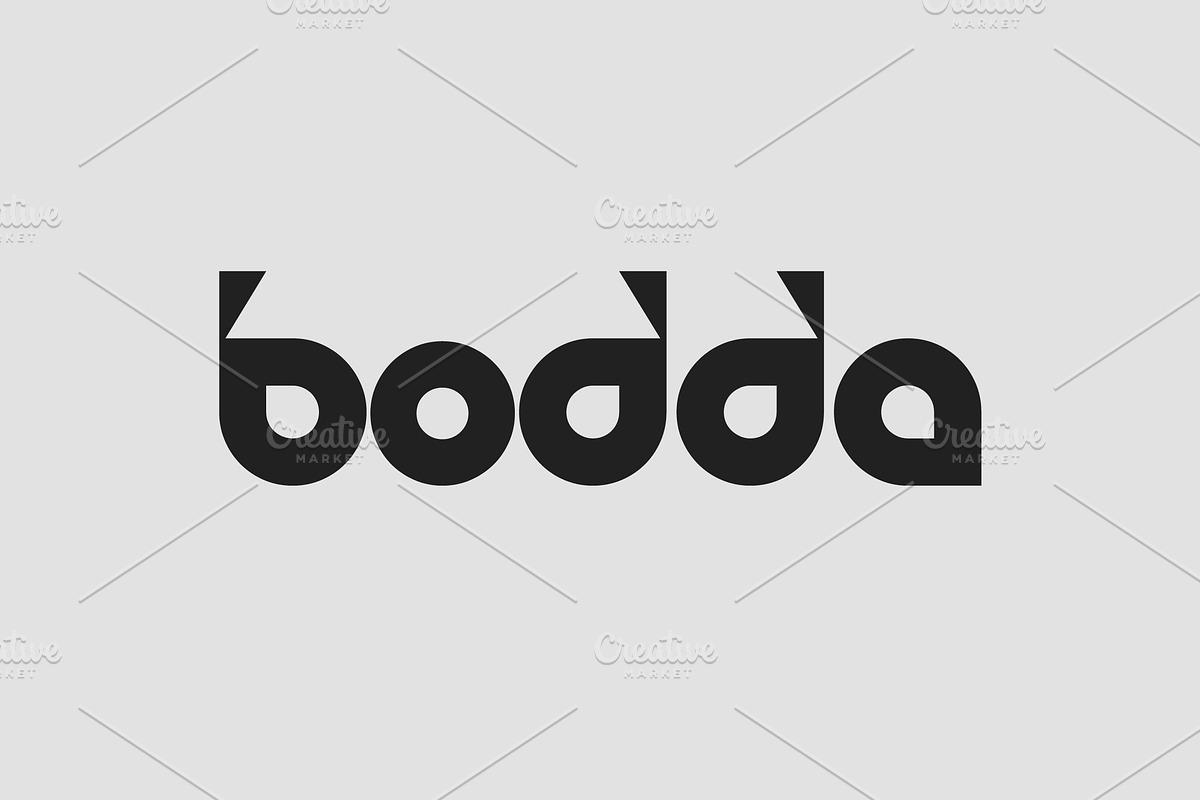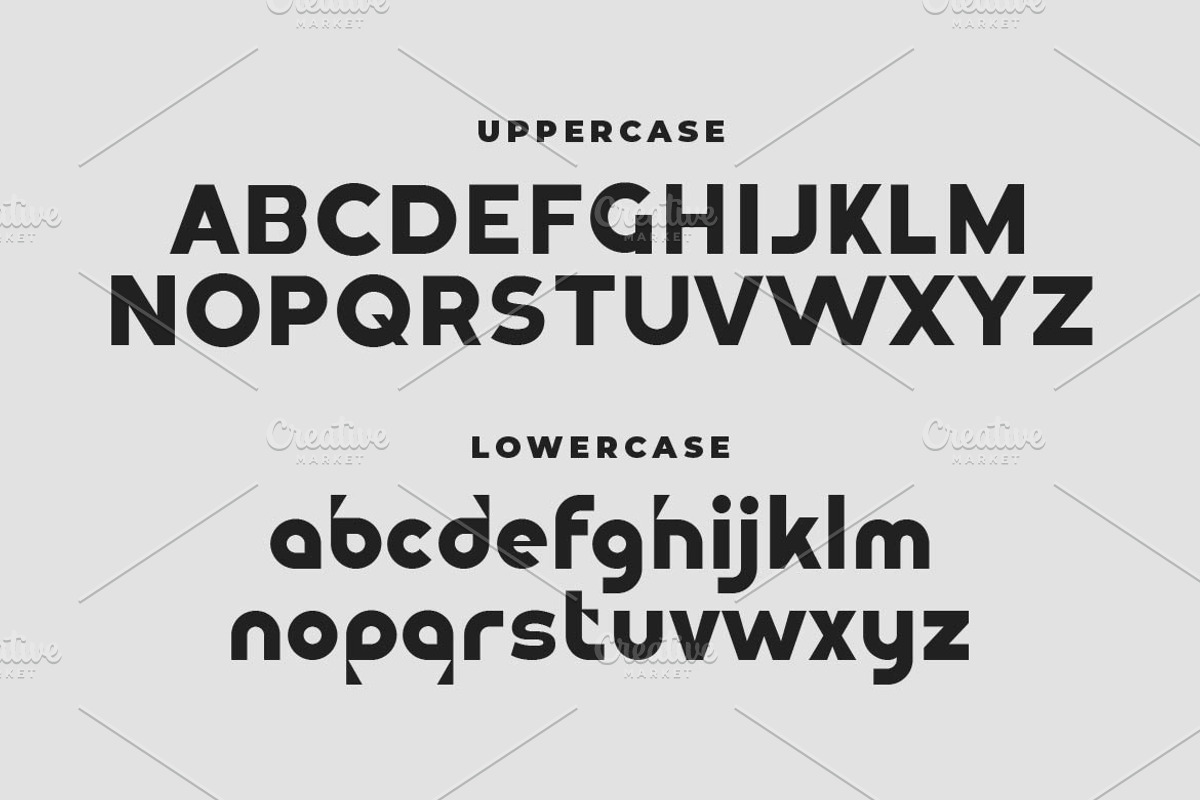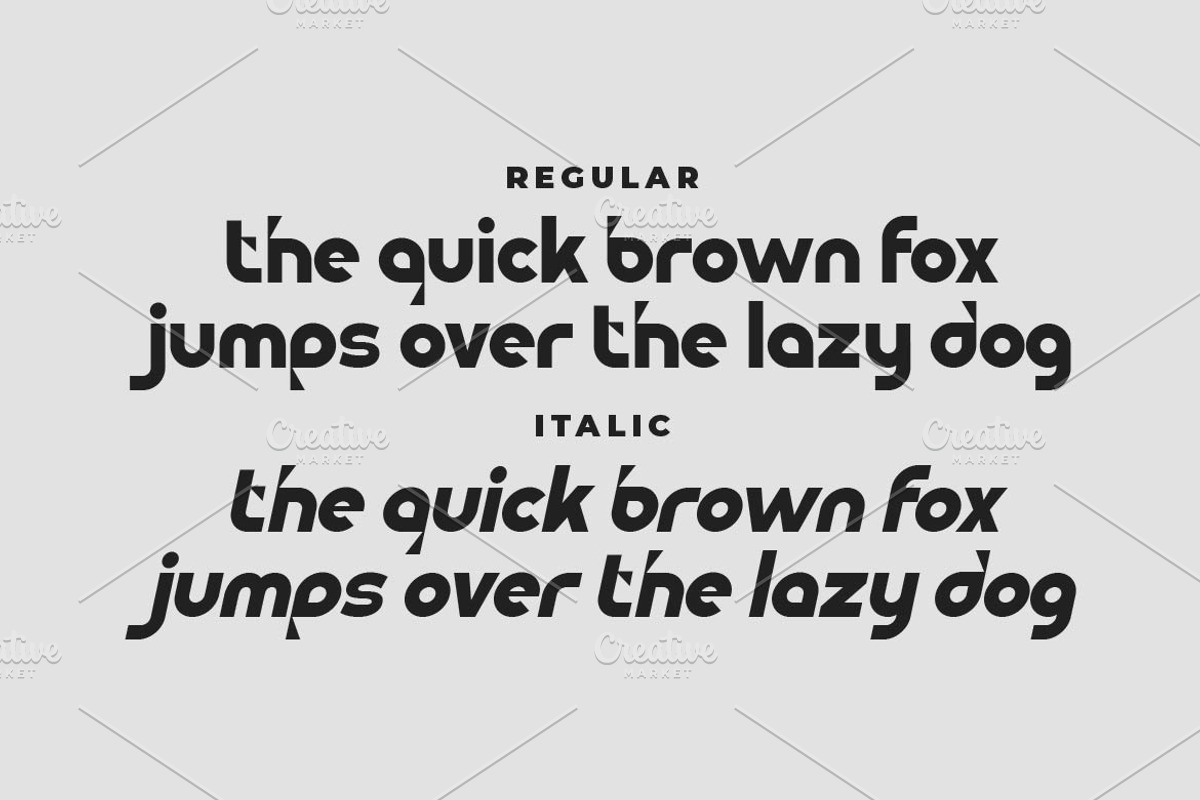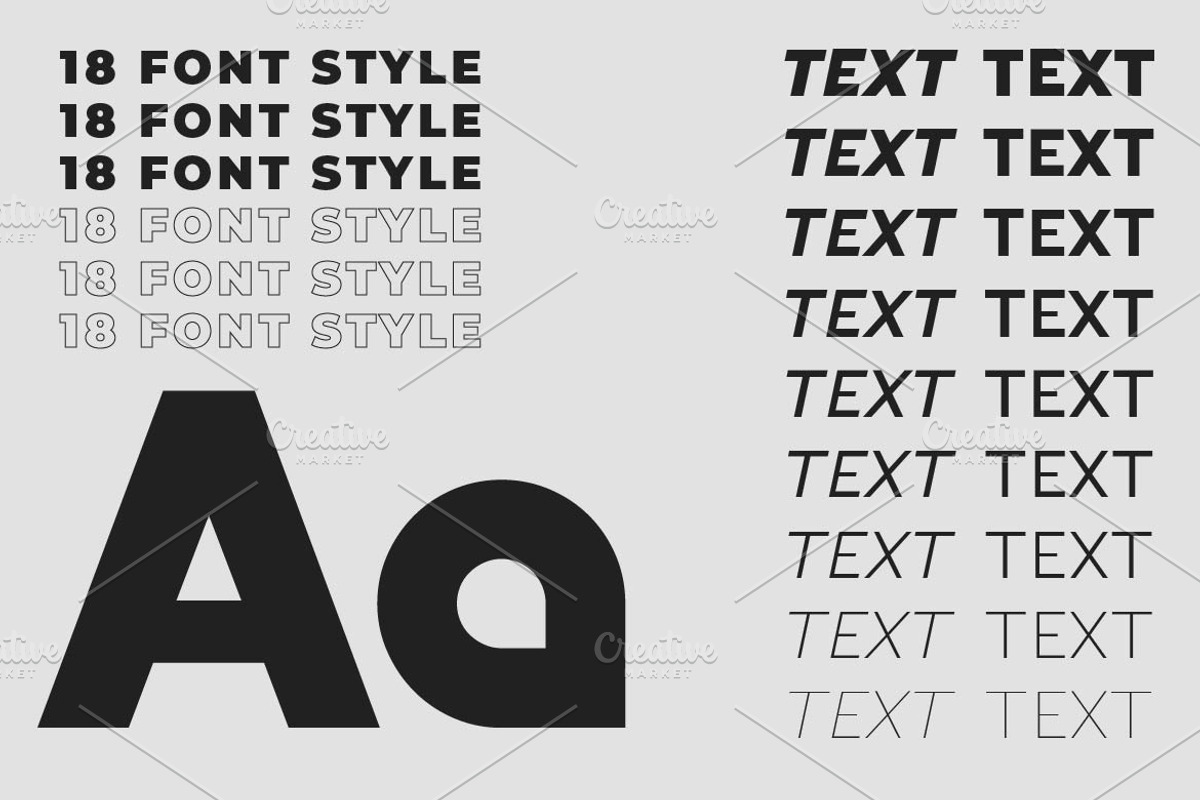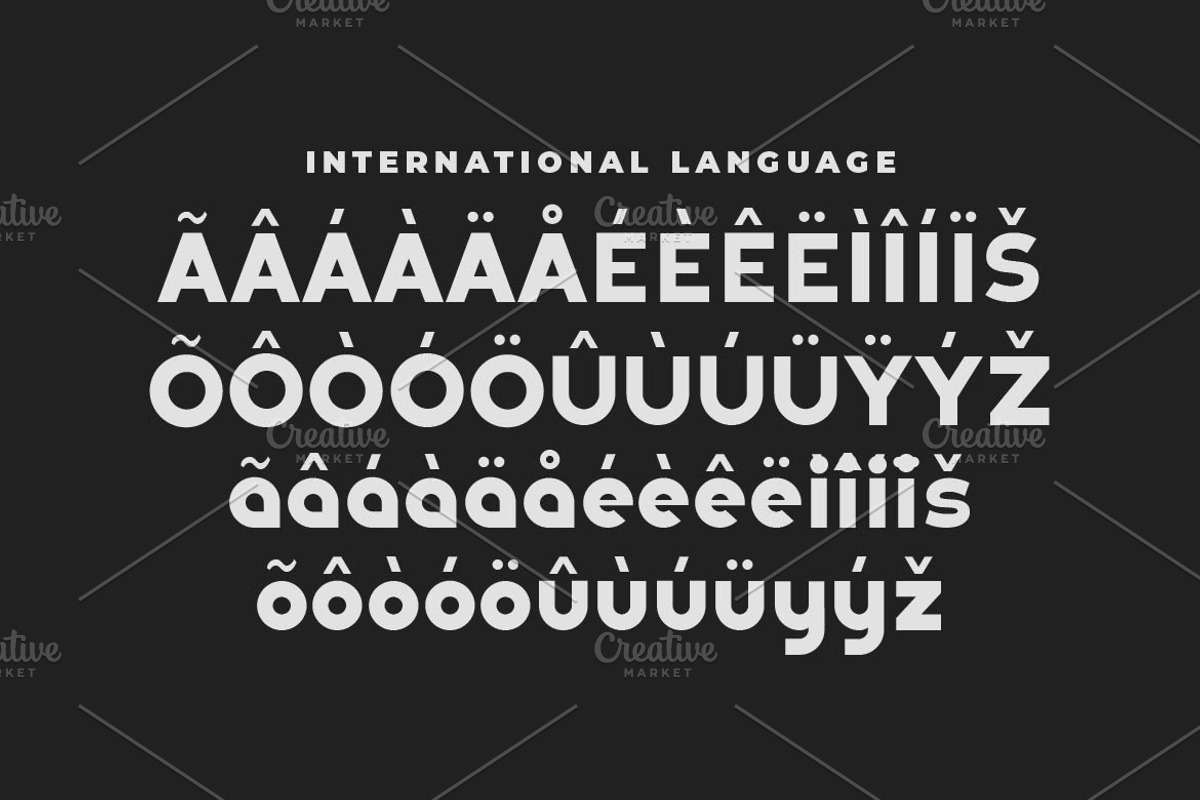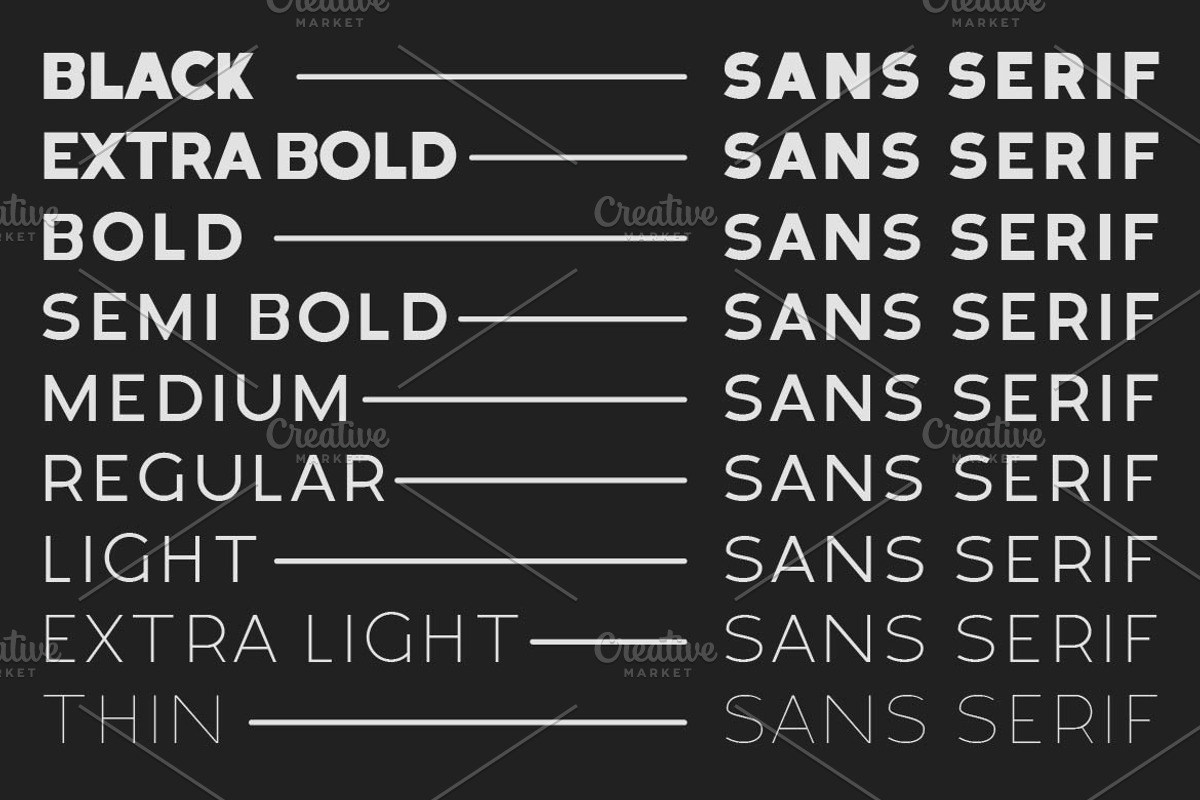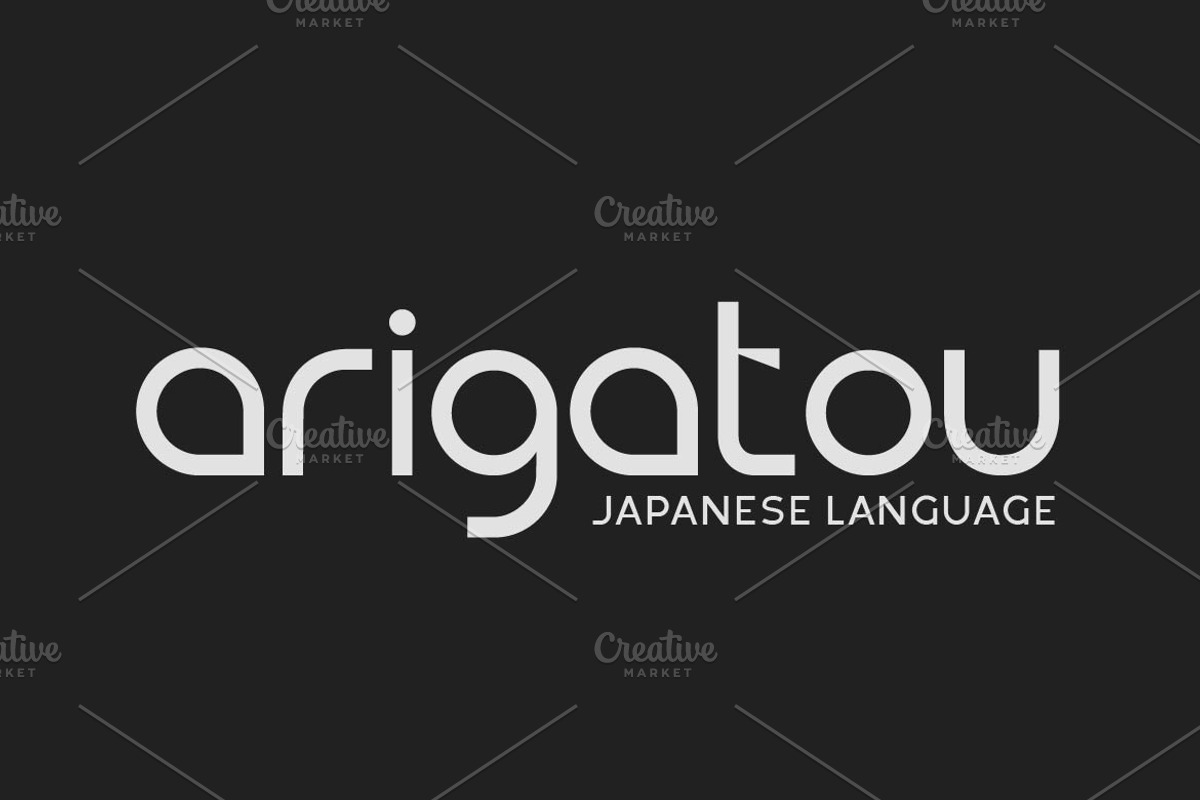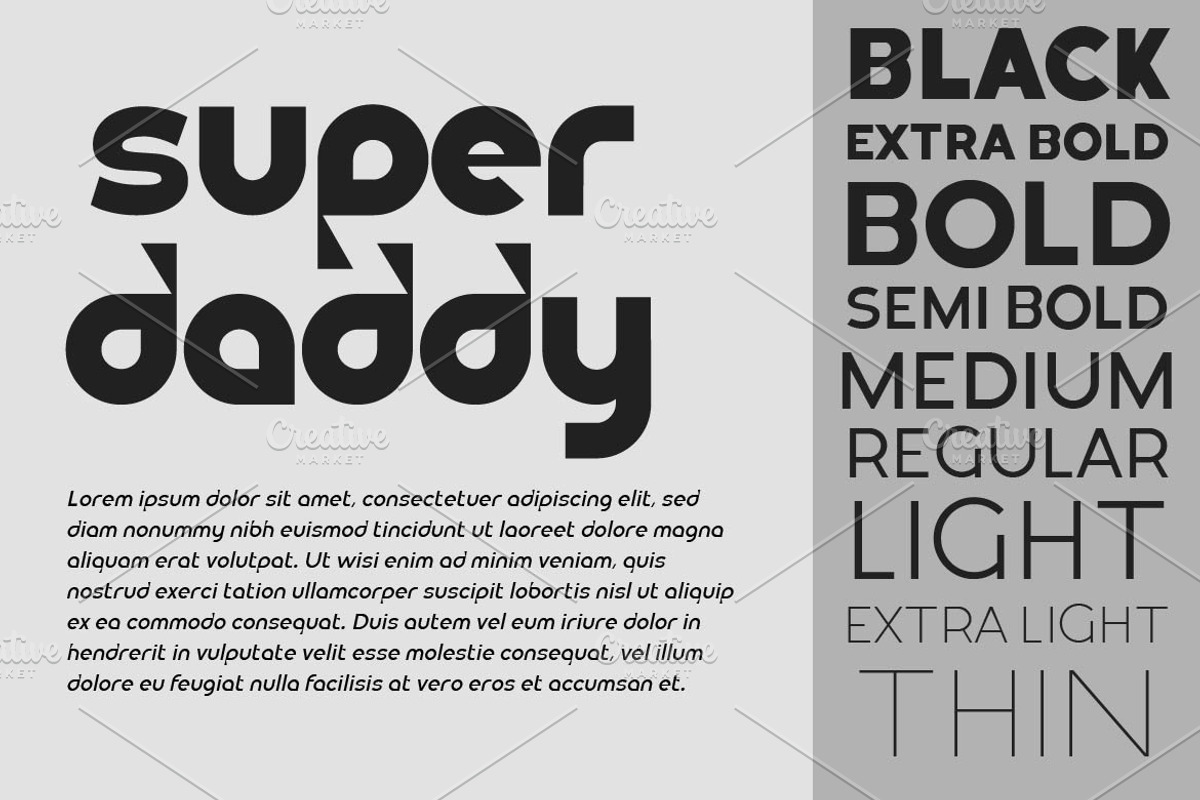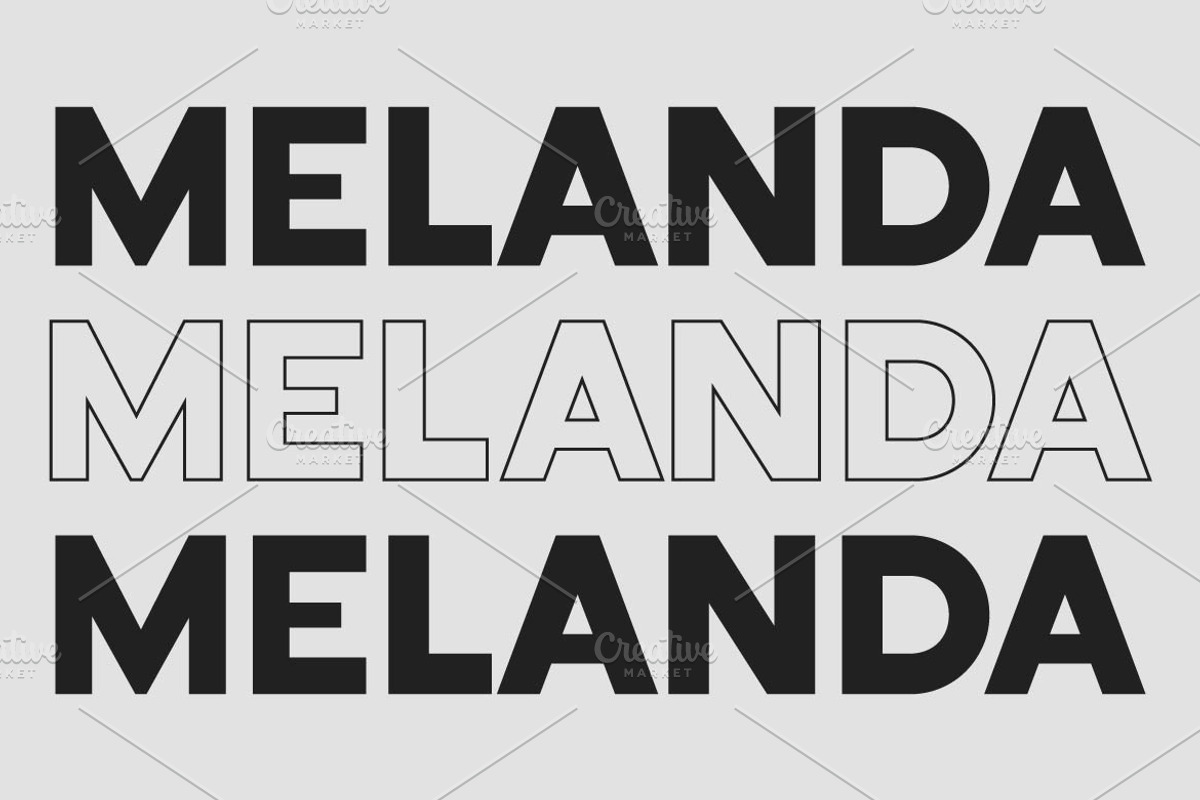
Bodda Creative Sans Font Family
Bodda is a creative modern sans serif font designed with sleek curves and contemporary letterforms that balance style and readability. Perfect for branding, editorial design, packaging, and digital projects, Bodda brings a fresh and sophisticated touch to any composition. With multilingual support, ligatures, and alternates, this versatile typeface ensures a unique yet professional look, making it an excellent choice for designs that demand creativity and modern elegance.